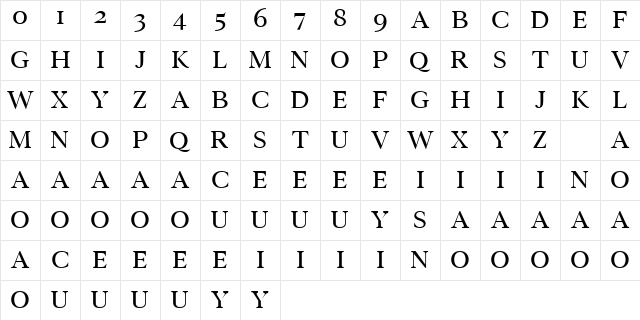
Wensley Demo Regular
Foundry: Creativetacos
Designer: Faraz Ahmad
Design Context for Wensley Demo
Wensley Demo is a composed and adaptable typeface that performs quietly and consistently across a wide range of design contexts.
Pro Tip: Use Wensley Demo in both headline and body roles to test its range before committing to a single application.